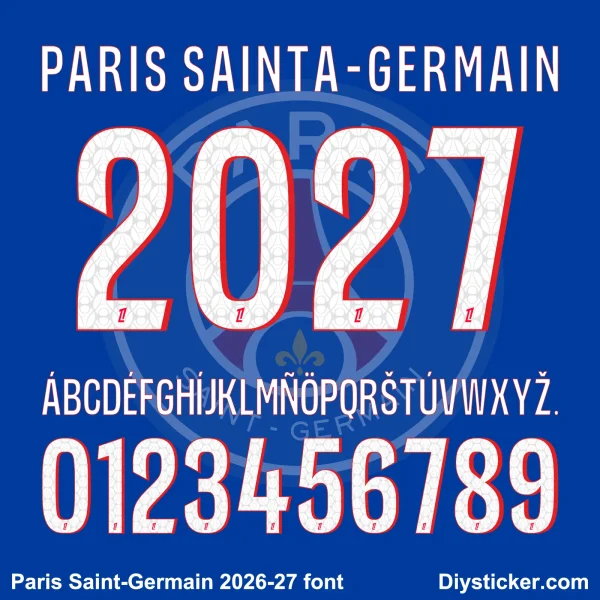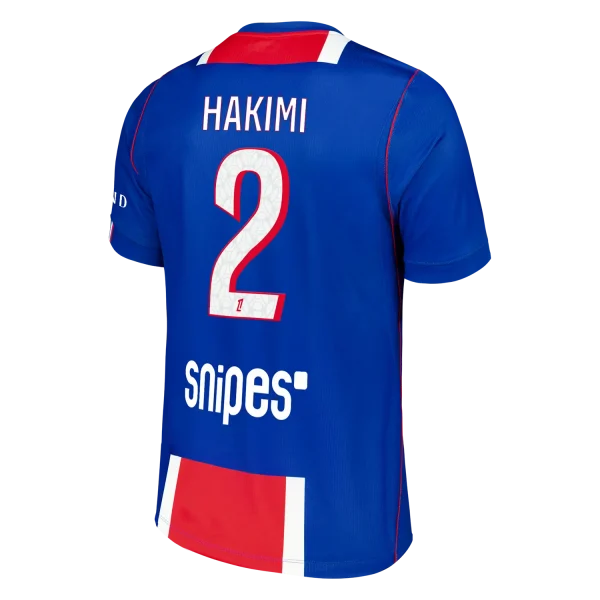
PSG Paris Saint-Germain 2026-2027 Season Kit Font Pack
The PSG 2026-27 font download is the essential tool for fans and designers who want to recreate the look of the Parisian giants. This exclusive typography set captures the modern aesthetic of the new home kit. For instance, it features the same sleek lines seen on stars like Achraf Hakimi. Because of its high-quality design, this font is a must-have for every dedicated PSG fan. Our PSG 2026-27 font download ensures that your custom projects look exactly like the official gear worn at the Parc des Princes.
Are you planning to create your own custom jersey? This PSG 2026-27 font download is ready for heat transfer and vinyl cutting. Moreover, the bold red outlines are designed for easy weeding. As a result, your DIY projects will look like they came straight from the Nike official store. In fact, many professional printing shops prefer our vector files for their precision. Whether you are making a shirt for a friend or a fan club, these files ensure a professional finish.
Complete Alphabet: Includes all capital letters and special accents for international player names.
Full Number Set: Numbers 0-9 with the authentic 2026-27 geometric textured pattern.